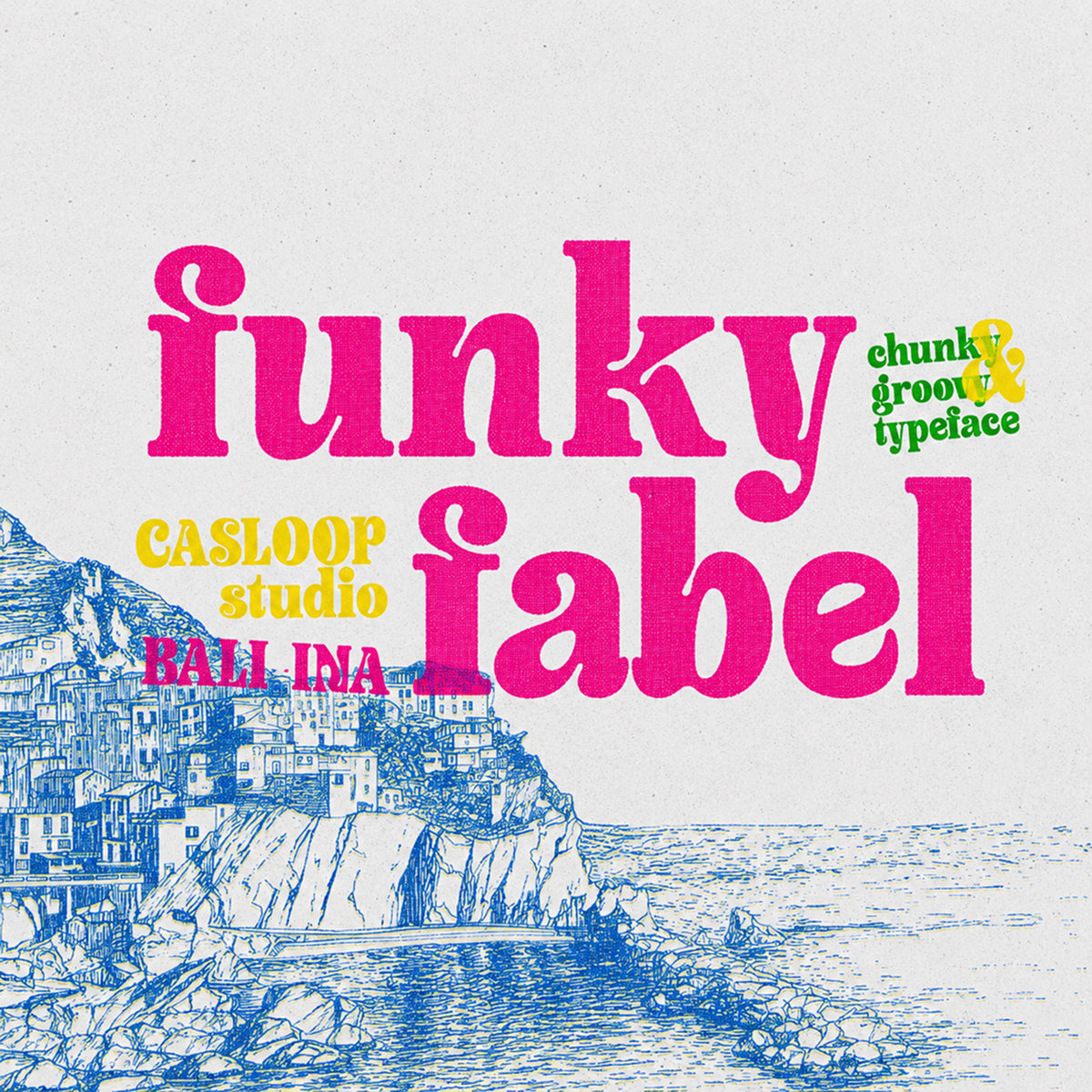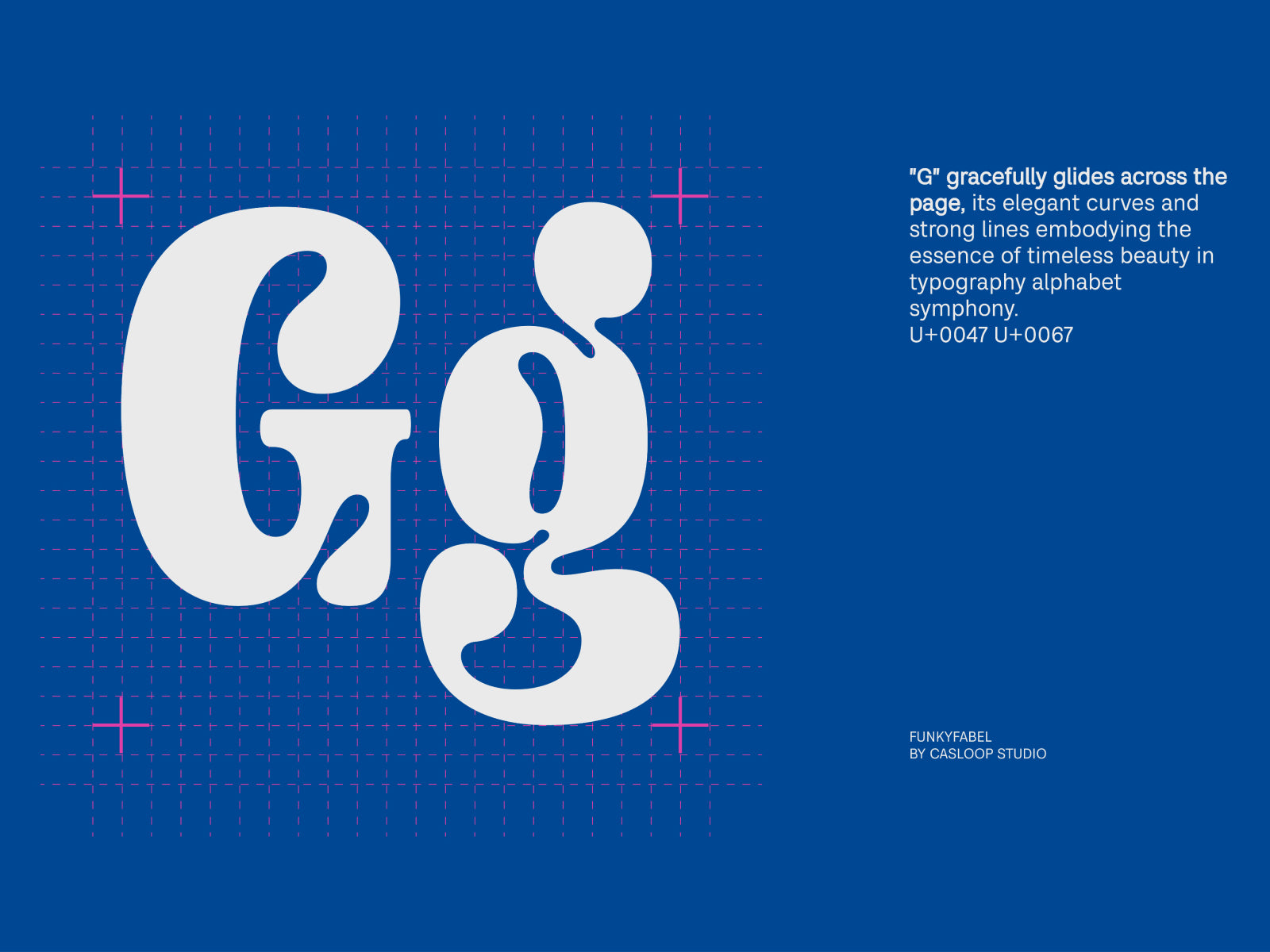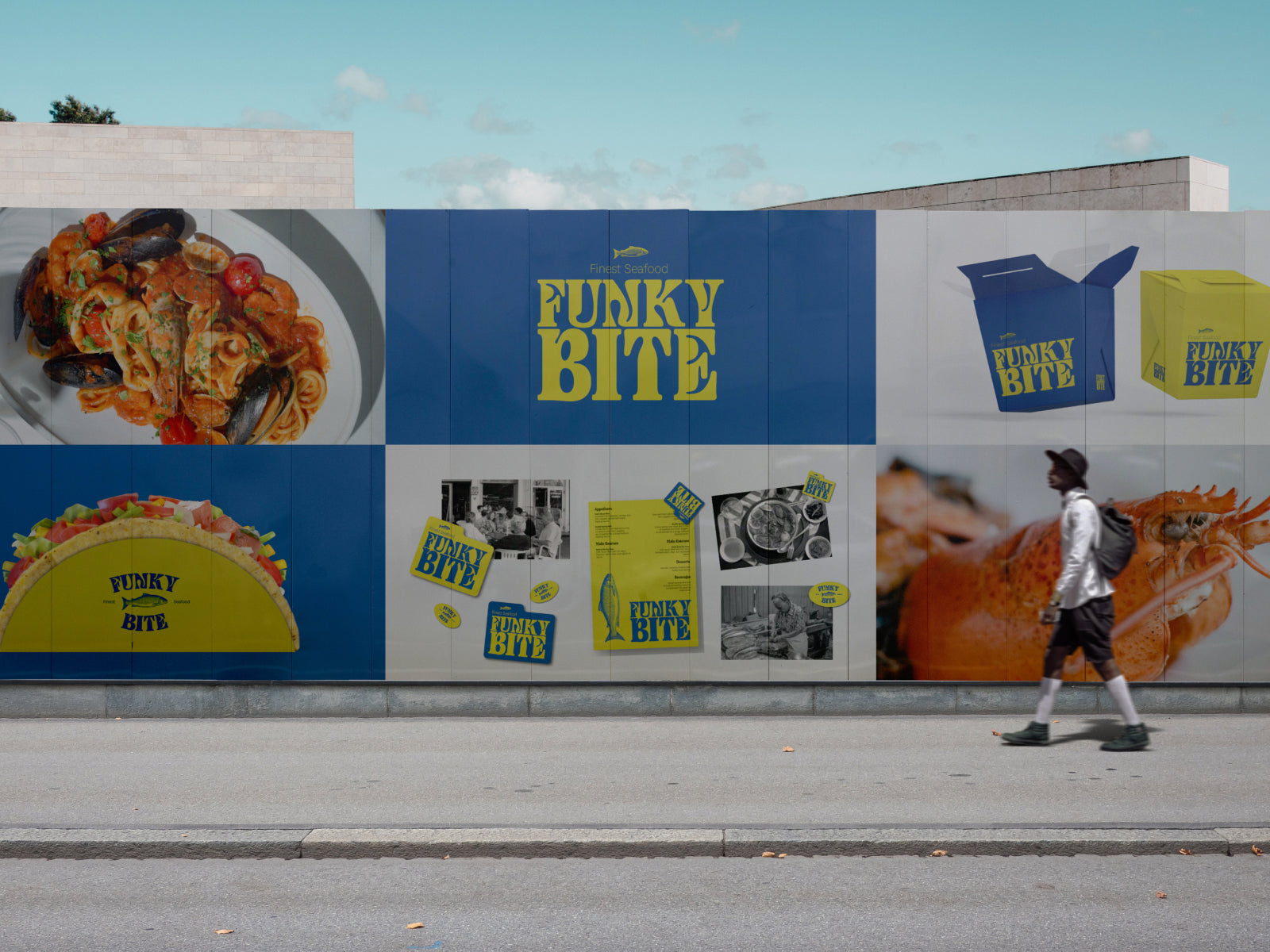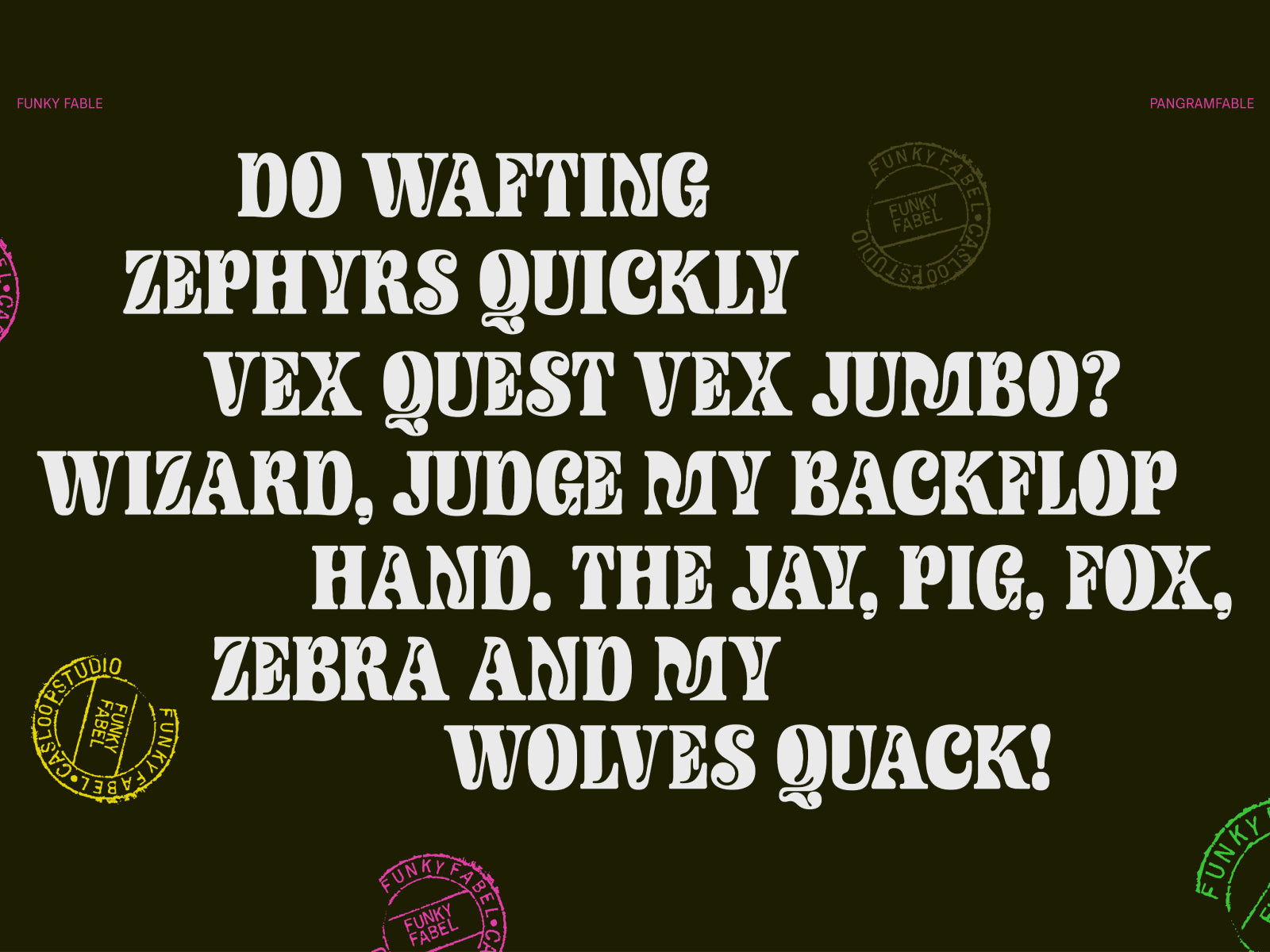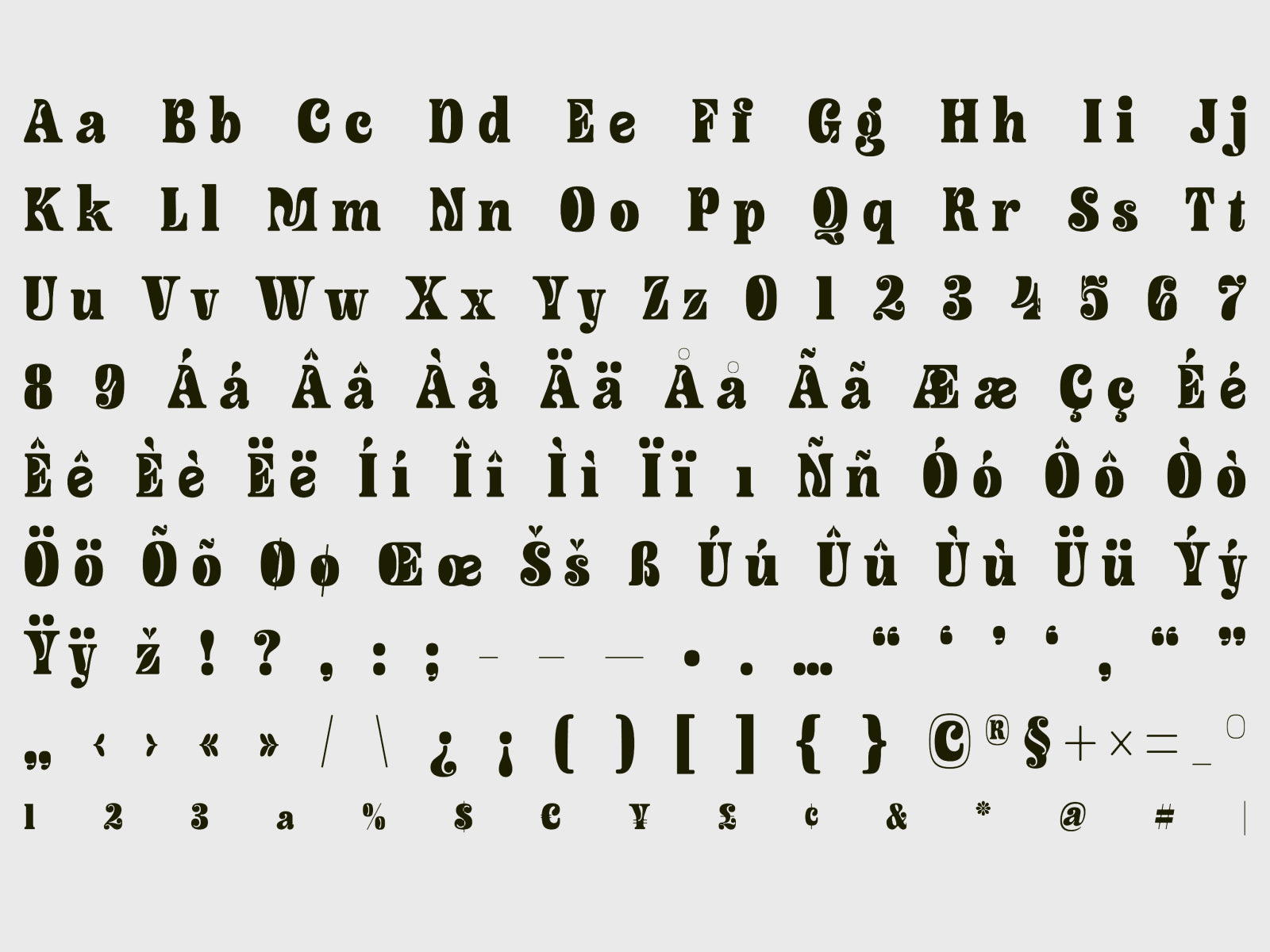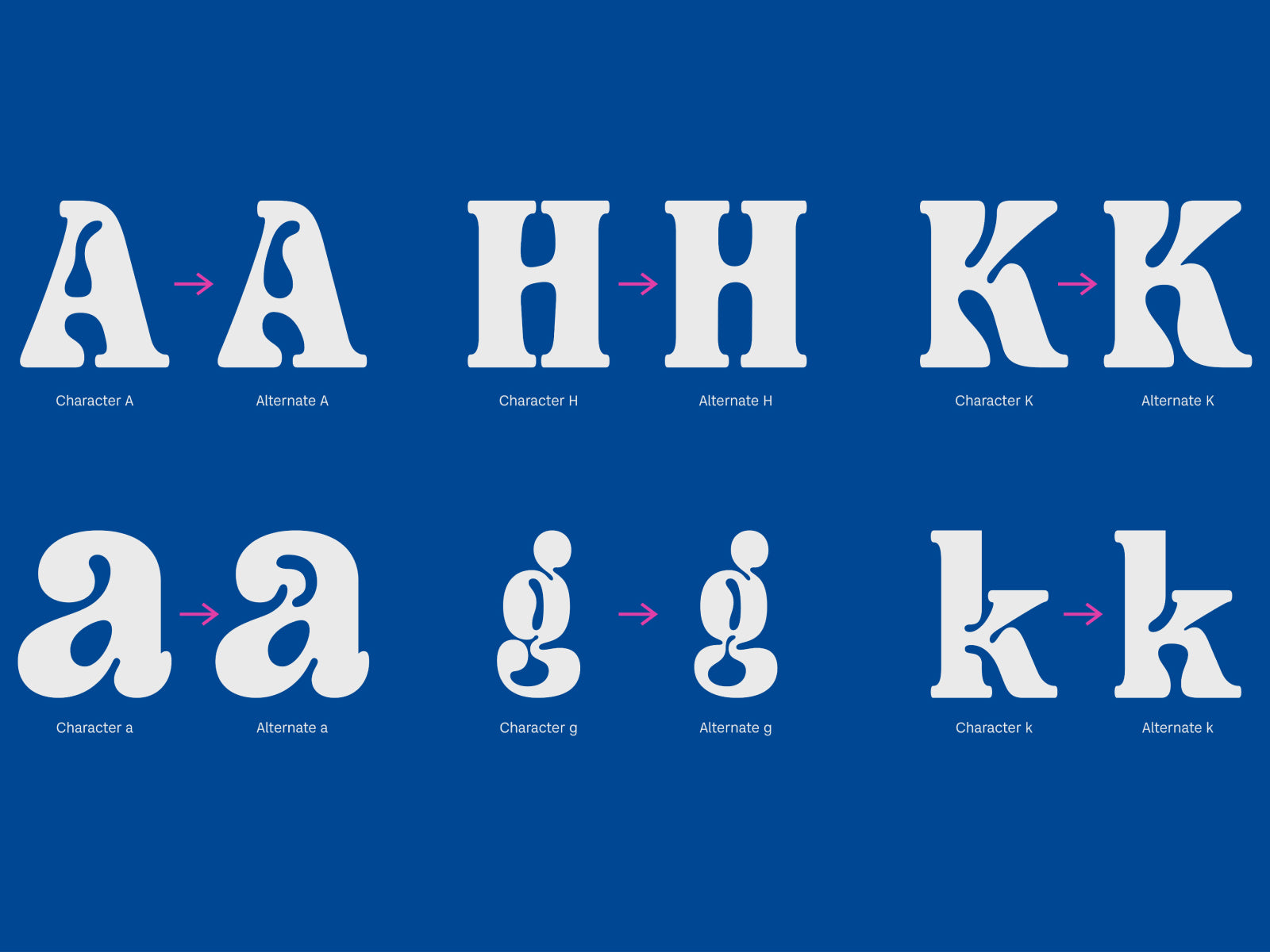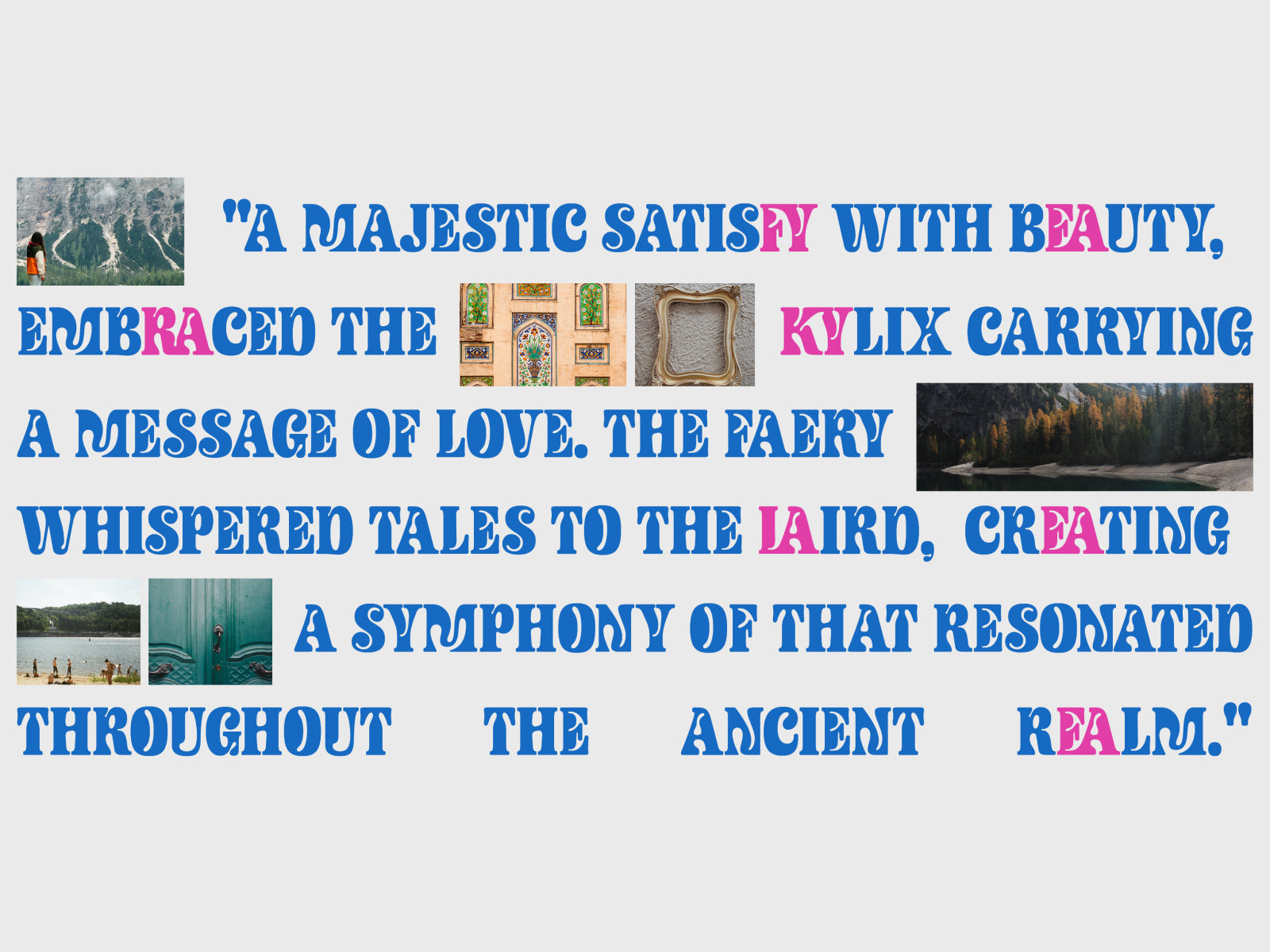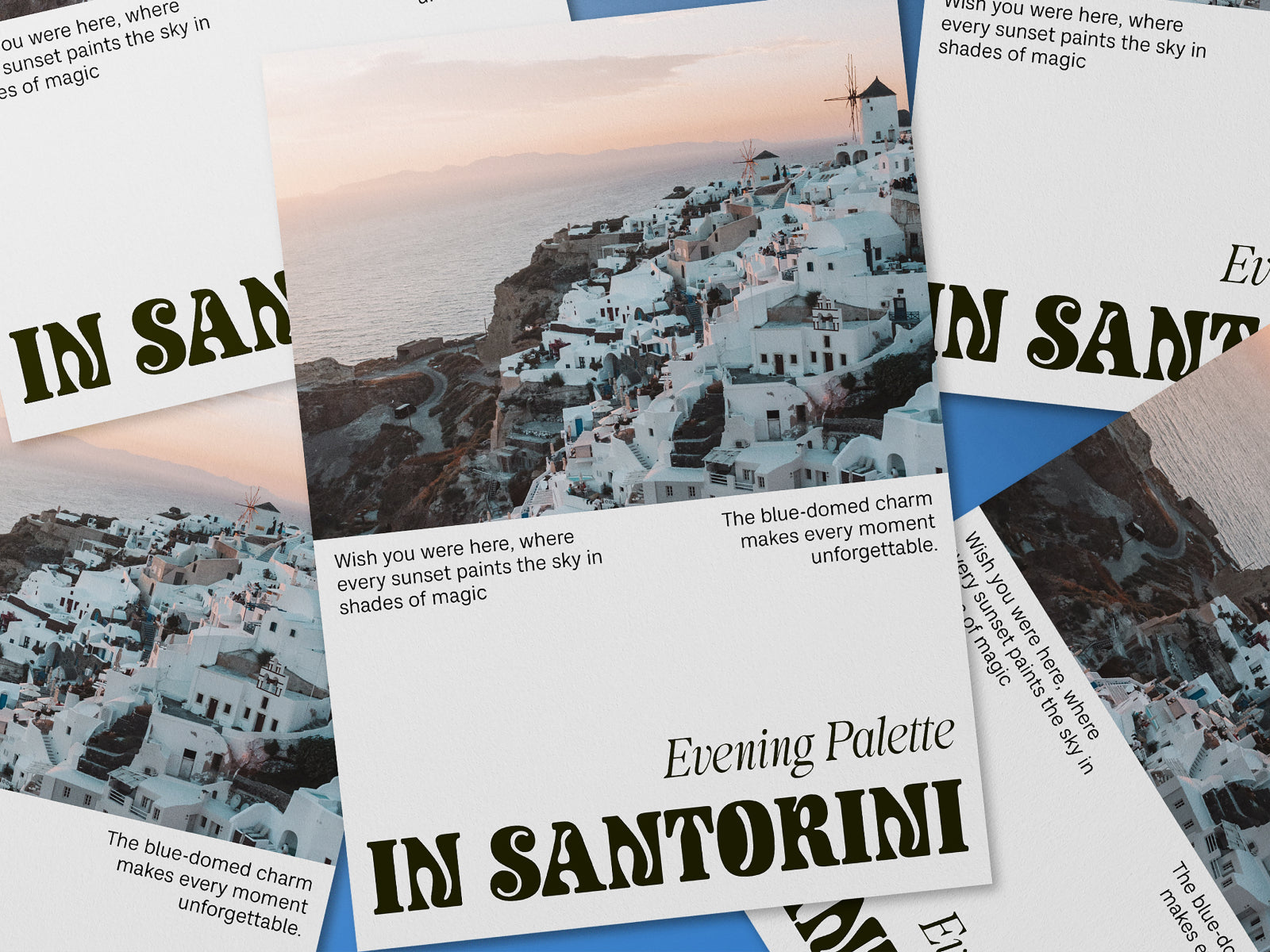
Funky Fabel Groovy Retro Typeface
Introducing our latest font creation Funky Fable
a captivating typeface that seamlessly weaves together diverse influences. This harmonious font encapsulates the essence of romance, celebration, and creativity with its eclectic blend of design elements. Perfectly suited for Valentine's Day or any occasion filled with love and joy, Funky Fable is a unique fusion of whimsical, retro, and kinetic styles.
Drawing inspiration from various sources, such as the artistry of Chinese calligraphy, the vibrancy of cinematic aesthetics, and the deep cultural roots of Brittany, "Funky Fable" becomes a visual tapestry that tells a story of love and connection. The acid-inspired colors and bold strokes give the font a vibrant energy, symbolizing the enthusiasm of celebration.
Infused with a touch of astrological mystique, the characters in "Funky Fable" seem to dance across the canvas, creating a cosmic harmony that echoes the patterns of the stars. The cursive elements gracefully intertwine, mimicking the elegant flow of constellations in the night sky.
This premium font goes beyond mere letters; it's a visual buster that breaks free from conventional design boundaries. The anamorphic, dada-inspired shapes add a modern twist, inviting a sense of freeform expressiveness that sparks creativity. The fusion of Ashford's sophistication and the font's playful quirks results in a truly dynamic design.
Funky Fabel Groovy Retro Typeface is a unique font that combines whimsical, retro, and kinetic styles, inspired by diverse influences such as Chinese calligraphy and cinematic aesthetics. Featuring bold strokes and vibrant colors, this premium typeface includes cursive elements and anamorphic shapes, offering a dynamic design suitable for various creative projects.